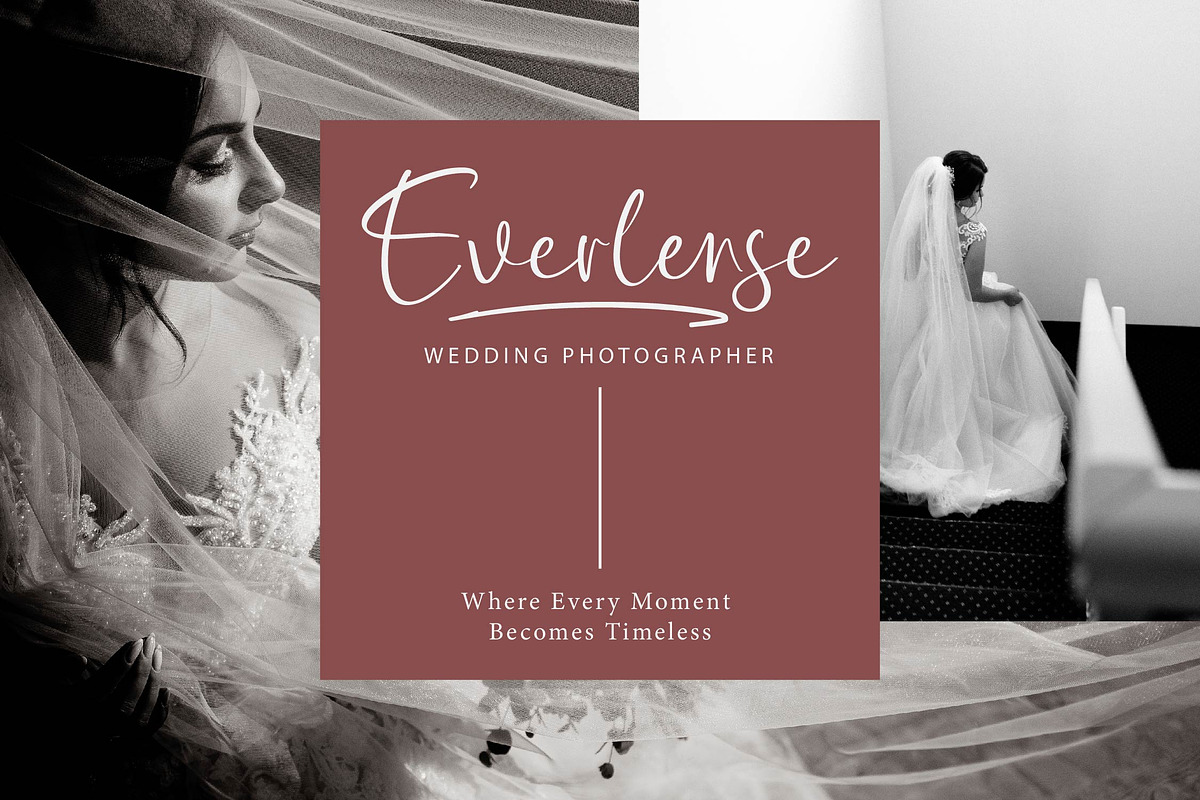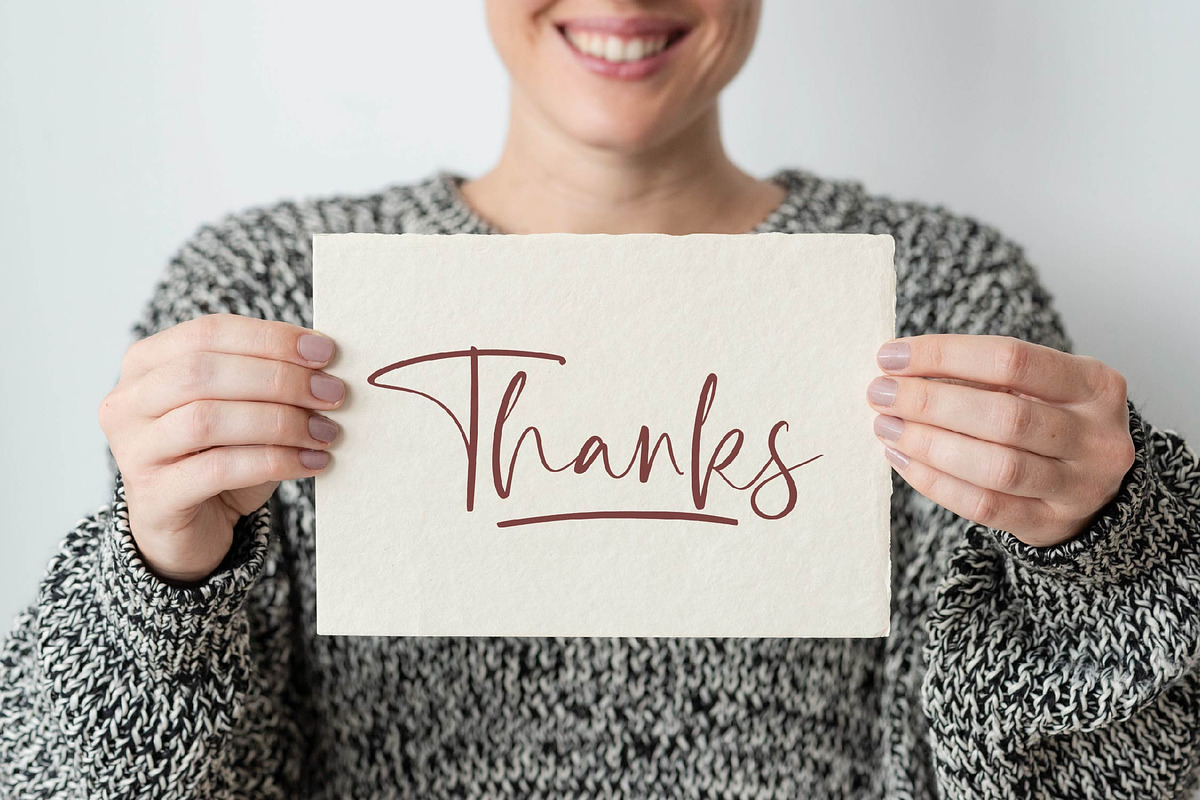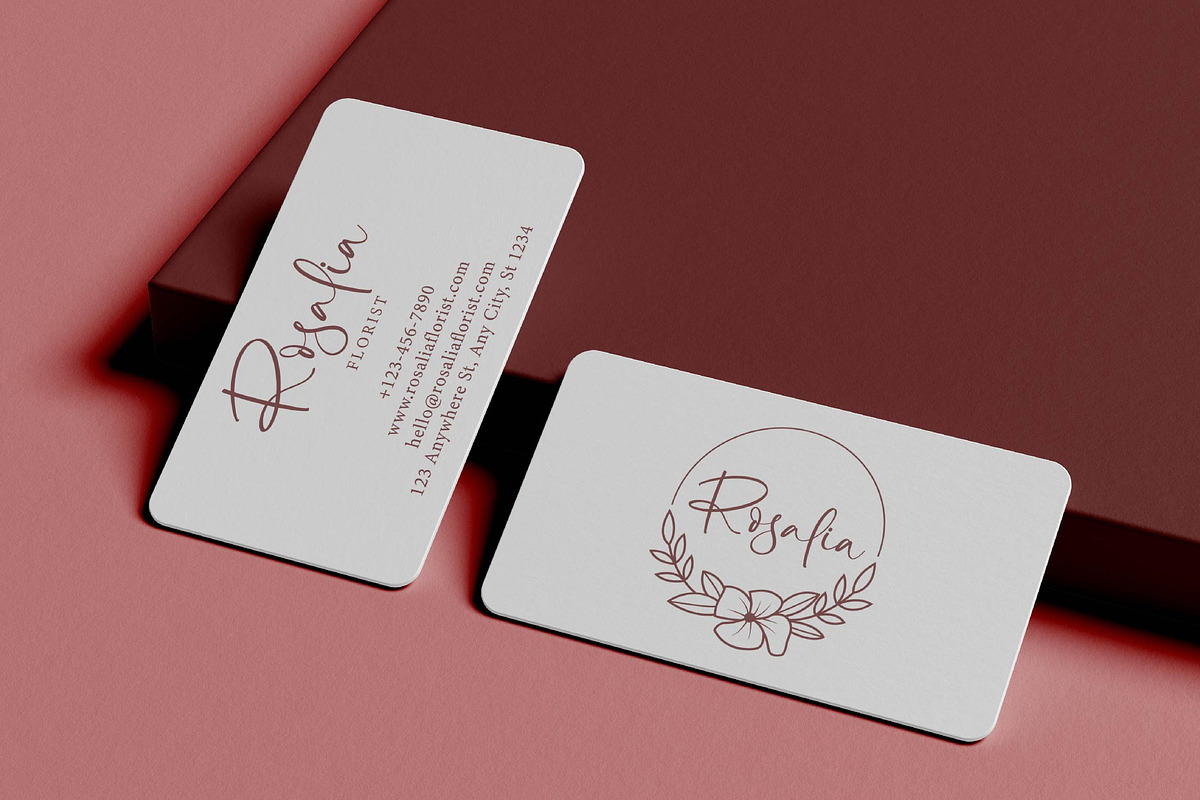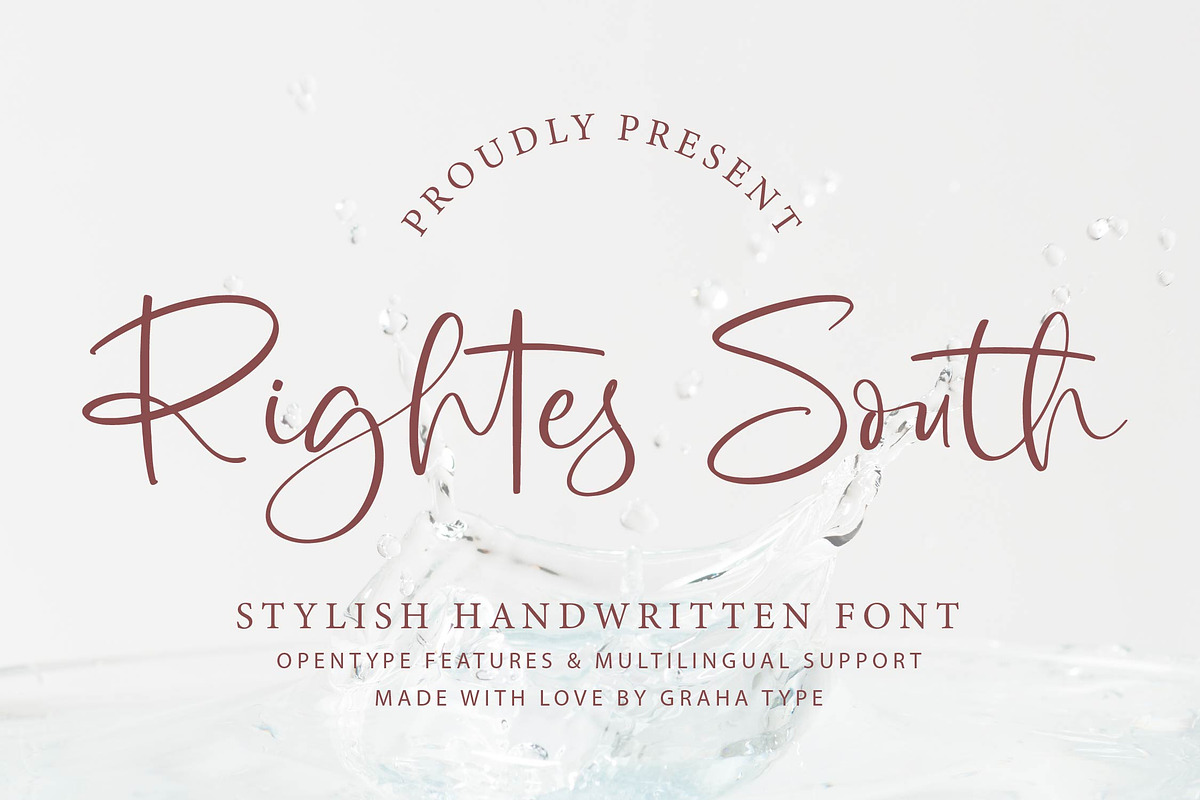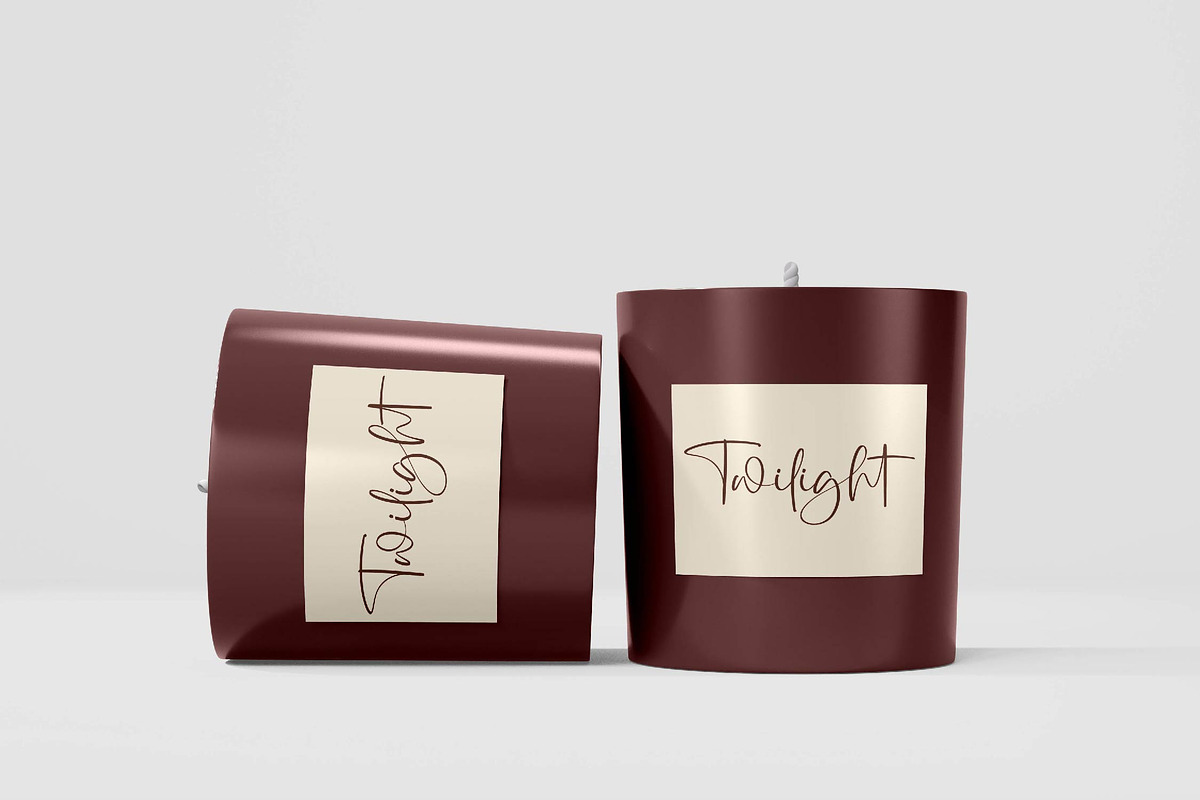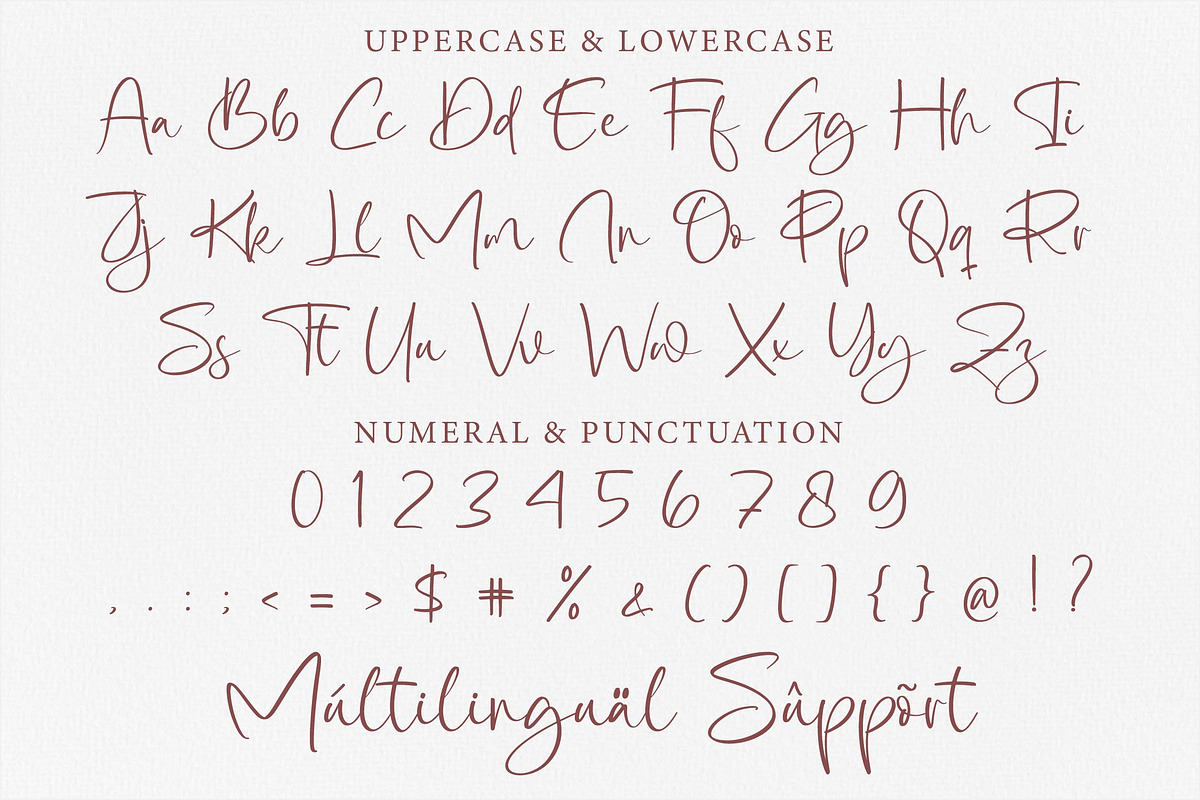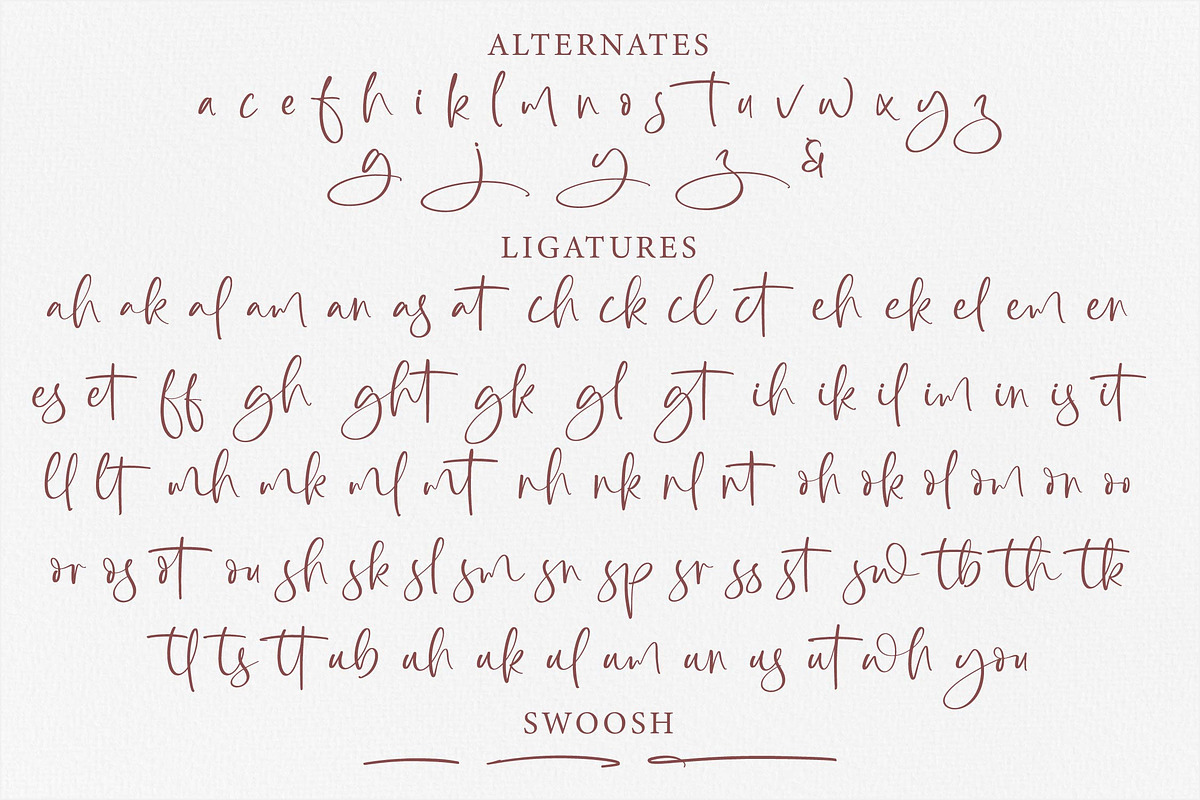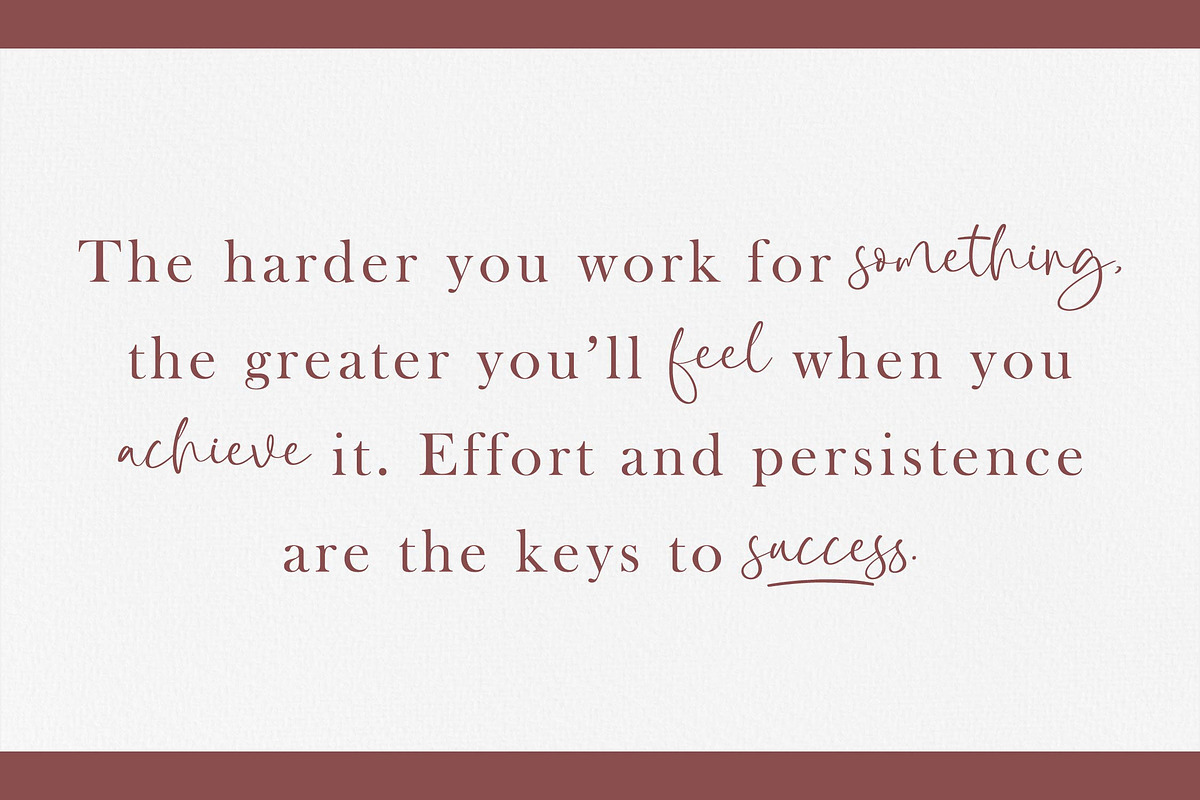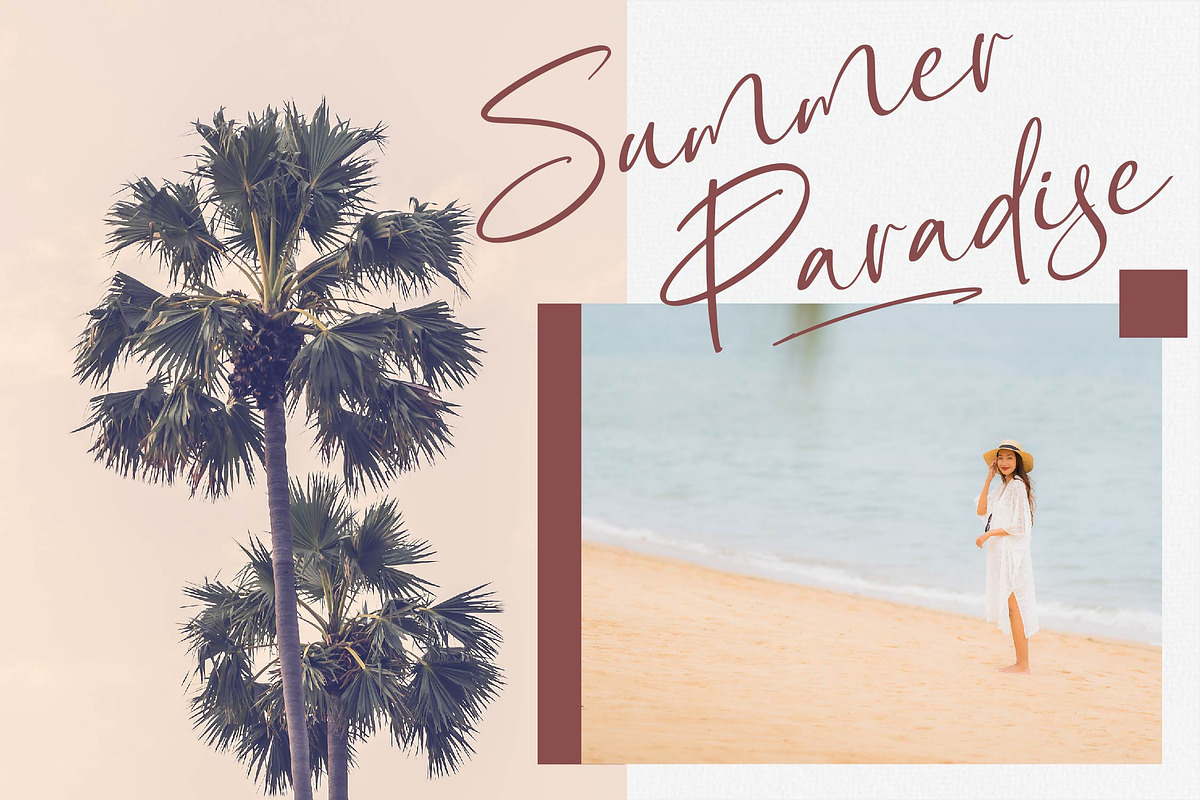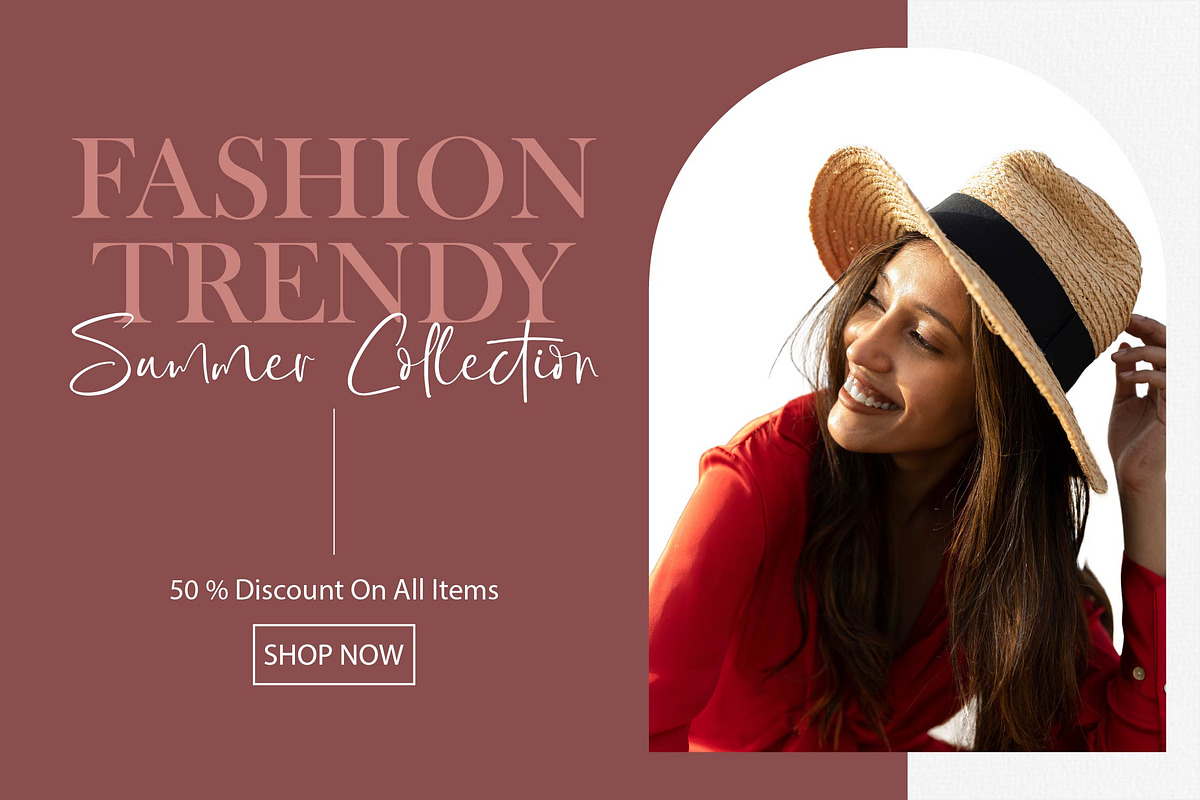
Rightes South - Stylish Handwritten
Rightes South is a stylish handwritten font that combines elegance with a modern touch. With smooth curves and lively shapes, this font is perfect for designs that highlight beauty and personality. Its unique strokes give it a chic, contemporary look, making it a great choice for many design projects, whether it’s for eye catching logos, romantic wedding invitations, or branding that feels premium and sophisticated.